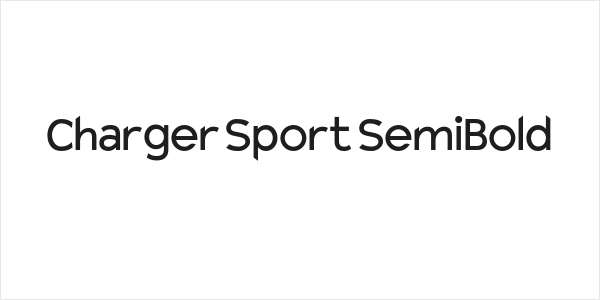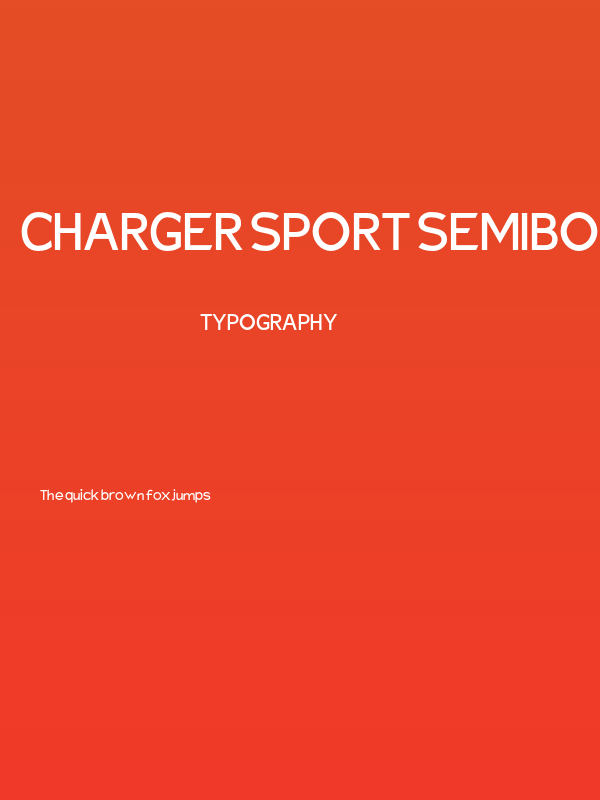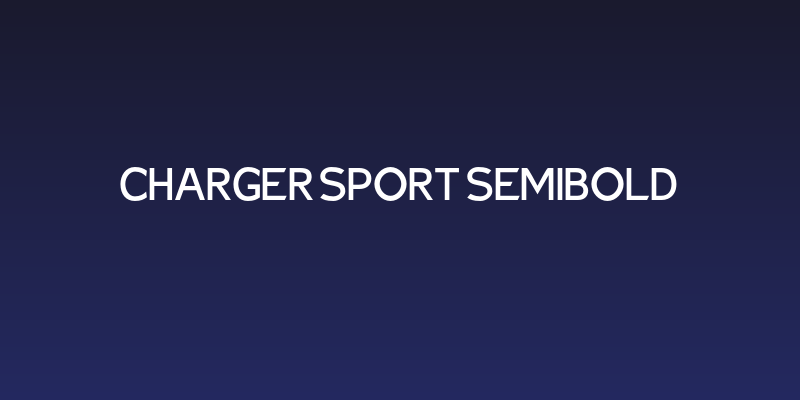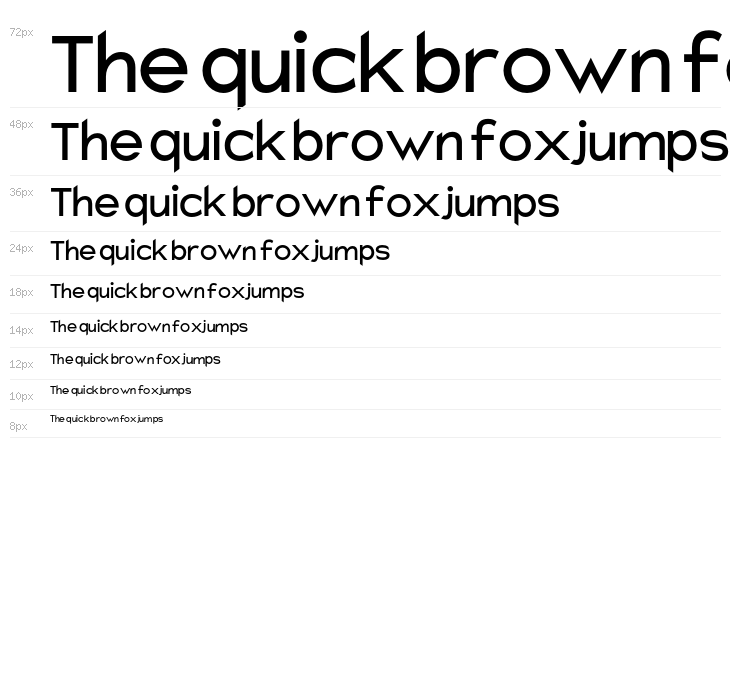
Charger Sport SemiBold Font
Charger Sport SemiBold Description
This typeface features a clean, modern aesthetic with smooth curves and a geometric structure. The uppercase letters are bold and assertive, while the lowercase letters maintain a consistent flow, making it versatile for various design needs. The numbers are clear and easy to read, with a uniform thickness that complements the overall style. Special characters are well-defined, adding to the font's utility. The design is balanced, with a slight emphasis on horizontal strokes, giving it a dynamic yet stable appearance.
| Use Case | Headlines, Logos, Digital Interfaces |
| Proposed Projects | Ideal for branding, advertising, digital interfaces, and editorial design. |